TOPIC
LIGHTS IN THE TEXT
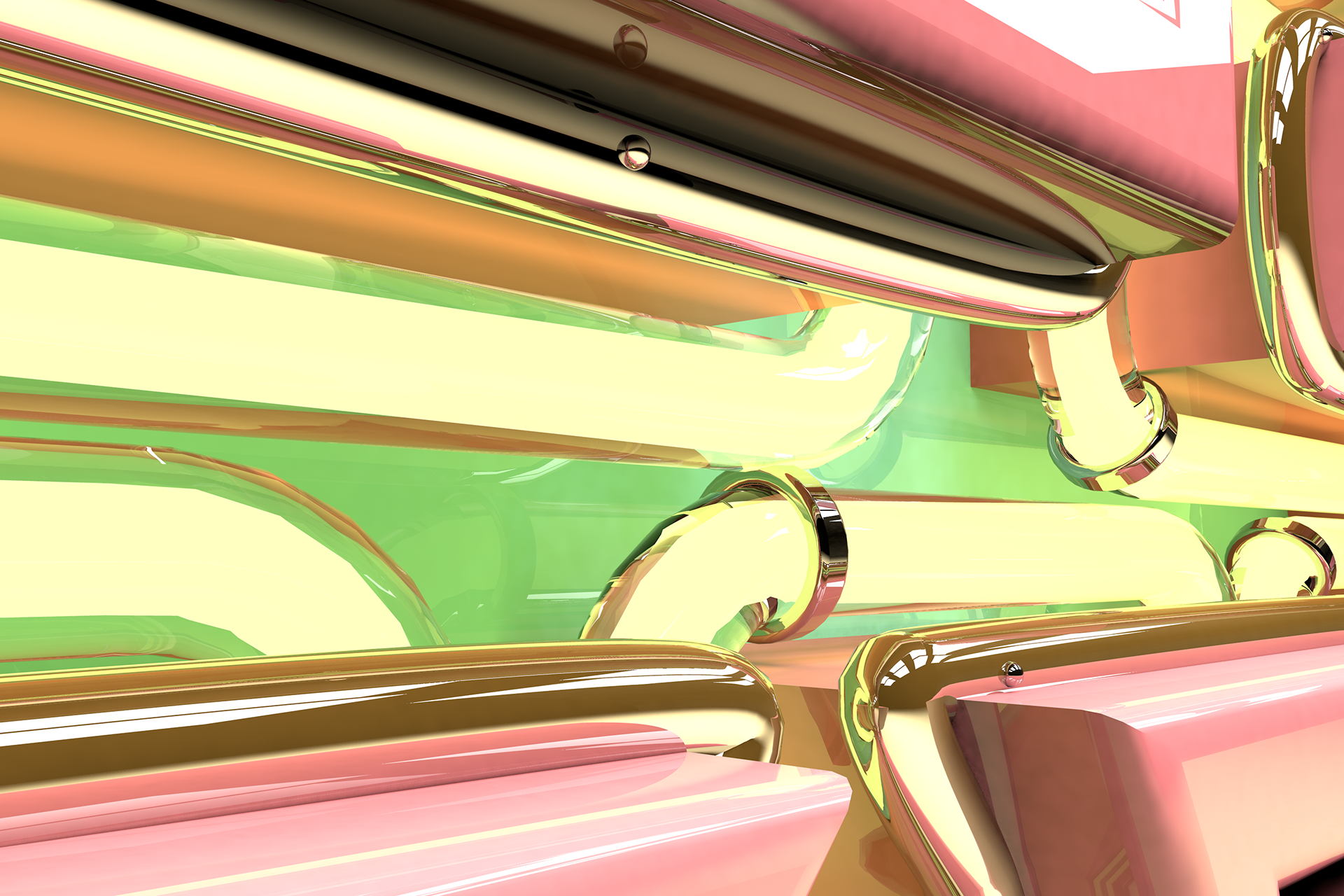
1
Use AI to draw various outlines of the font
2
Import the produced font into C4D
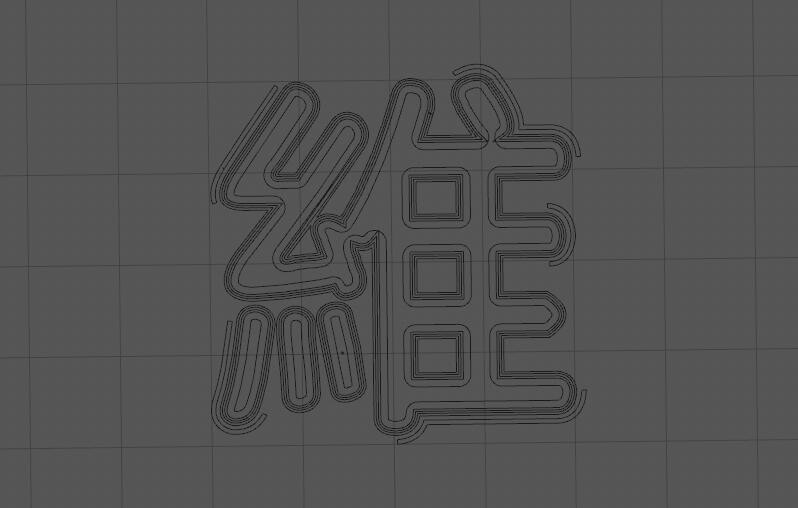
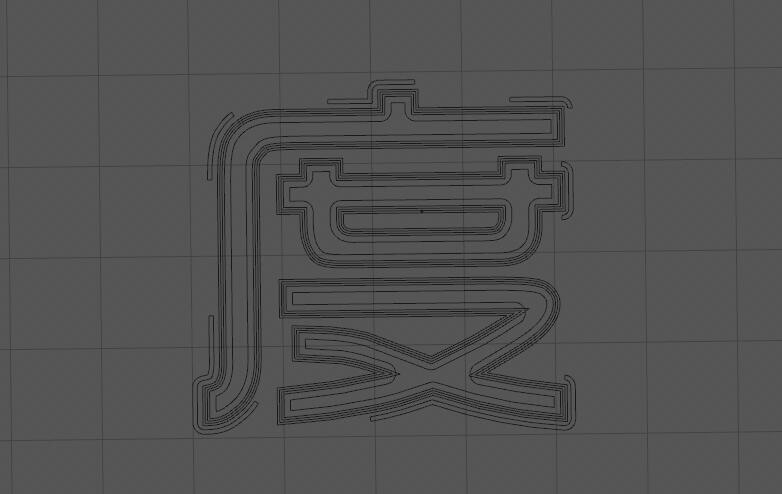
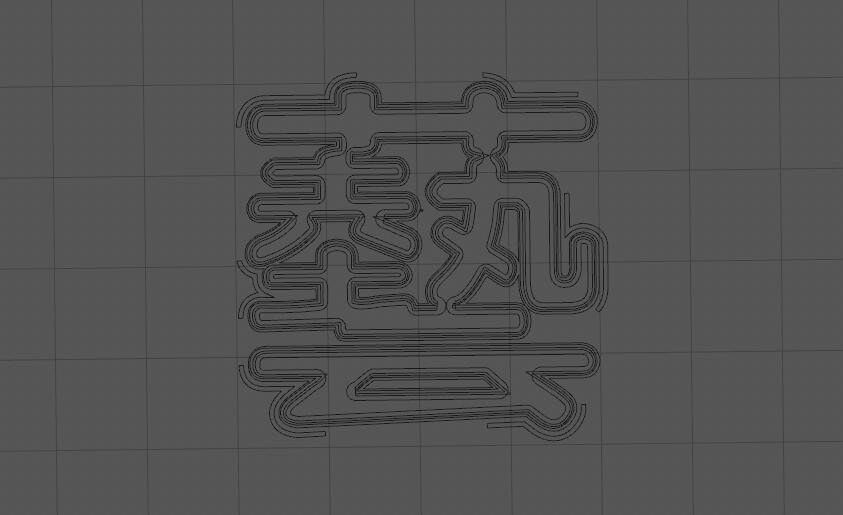
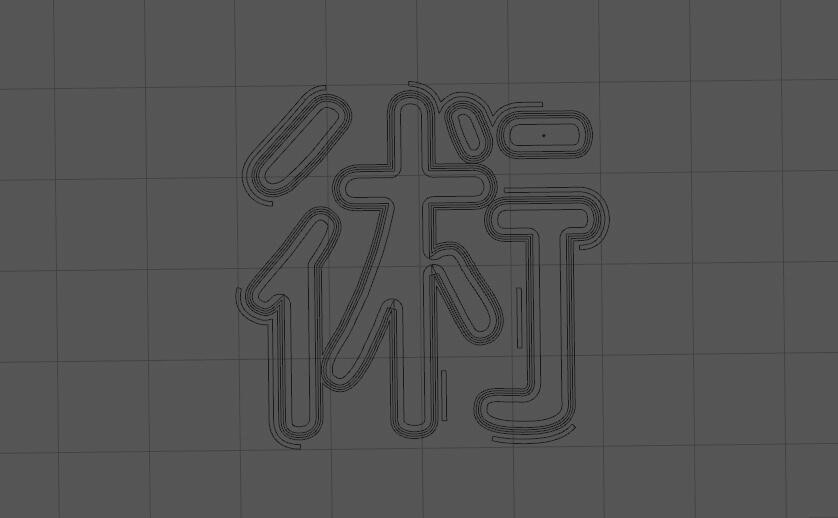
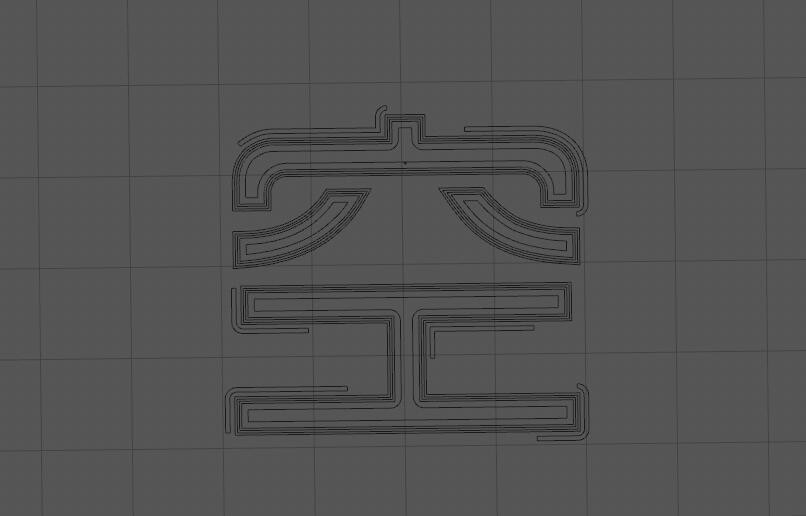
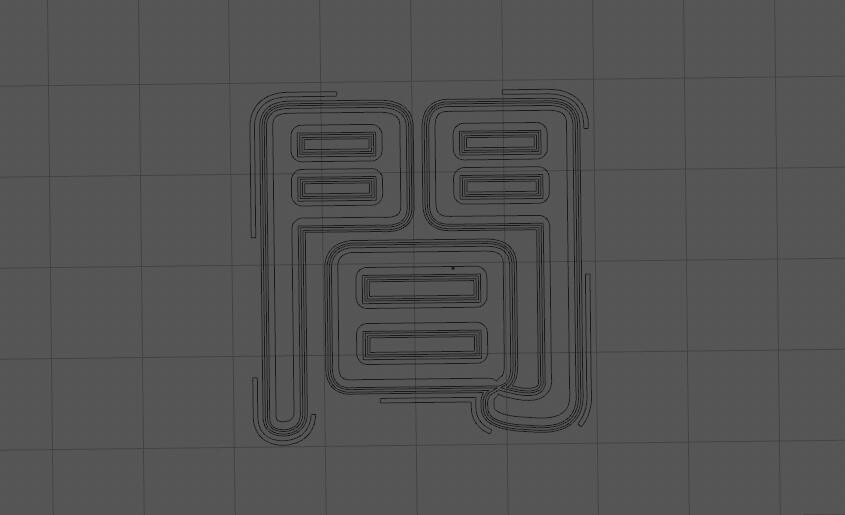
3
Stereotypes text and adjustments by extrusion
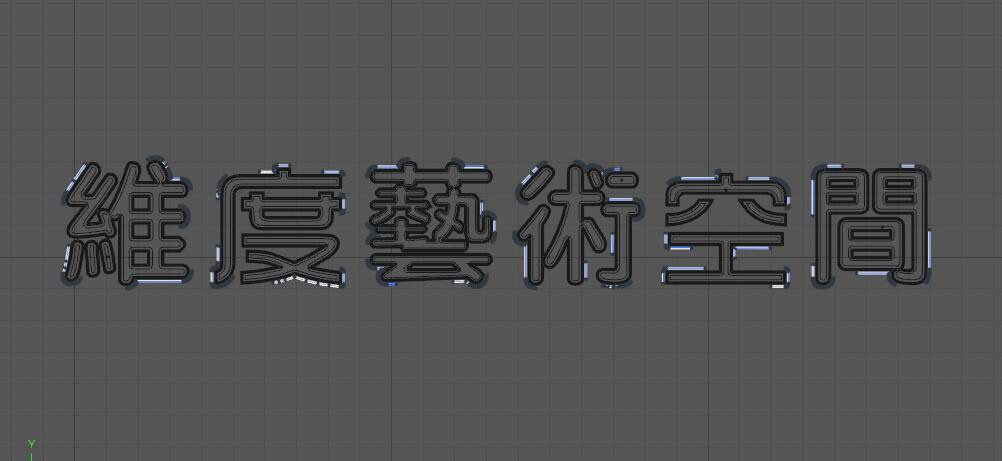
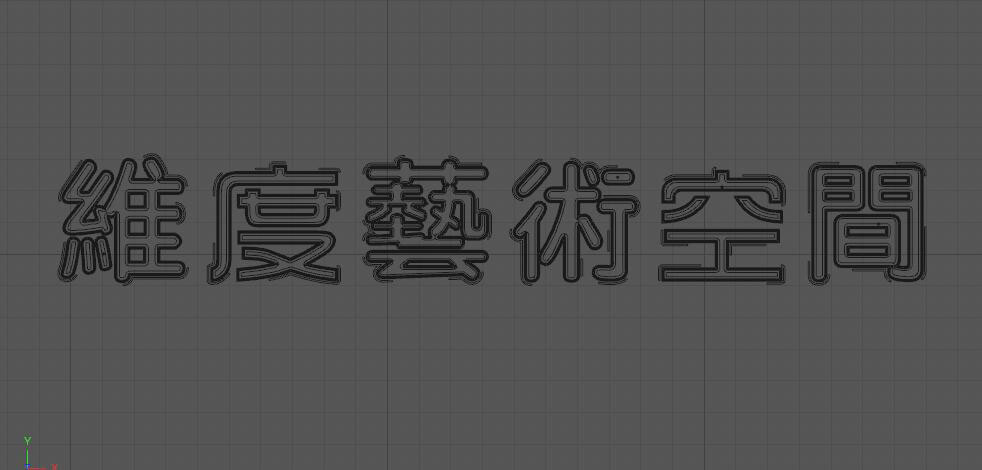
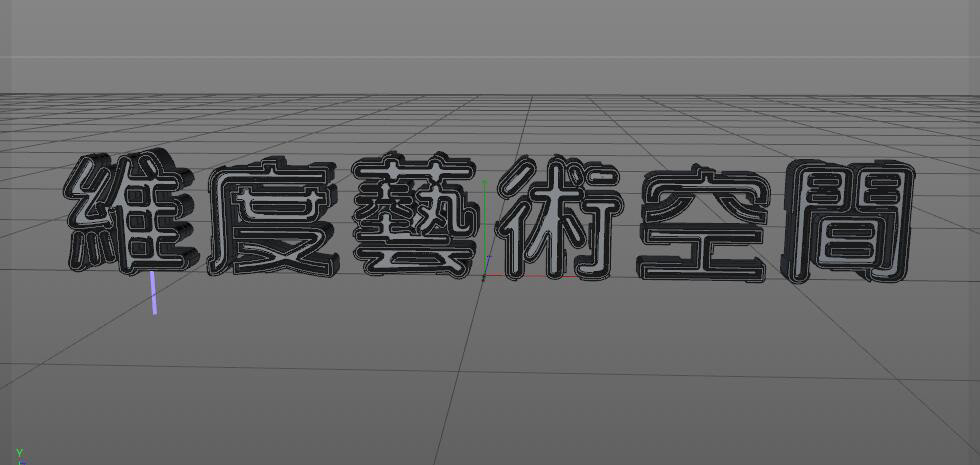
4
Handle the details of the model
adjust the curvature and add brackets
5
Well we can start to paste the material on the model
Try a variety of color and shooting angle
We can play some fluorescent effects
And give them a different color
LAST
This is my own some collocation
you can adjust any angle and color match
after all, the model is ready